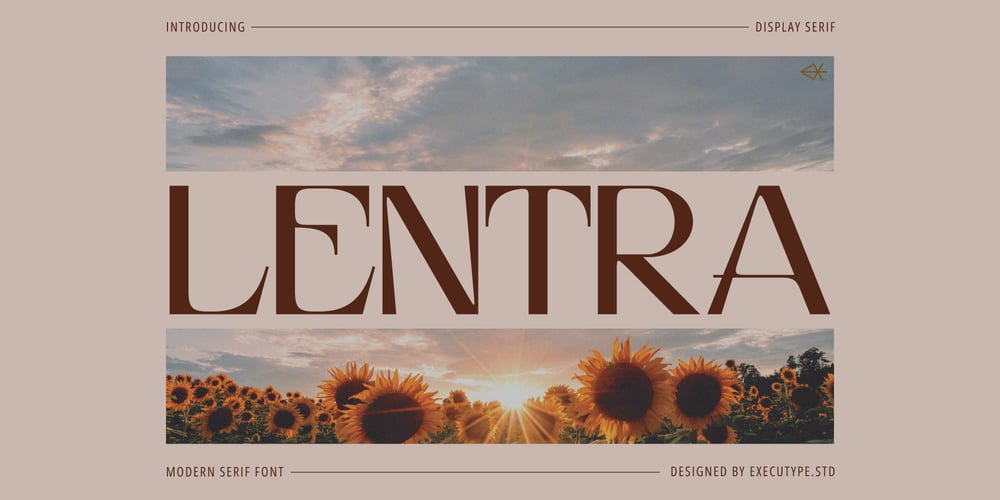
Lentra Display
Lentra Display font
Lentra Display Font Family was designed by Dzulka Elfira and published by Tebaltipis Studio. Lentra Display contains 1 styles and family package options. Lentra Display a new fresh & modern serif with a strong style, a dancing baseline! So beautiful on invitation like greeting cards, branding materials, business cards, quotes, posters, and more!Lentra Display is the part of a strong and modern Bold display. This typeface both impressive at display sizes and easily readable in text size, while the sharp shapes of the triangular serif and the distinctive letter shapes show their strength in logo design and impressive editorial use.